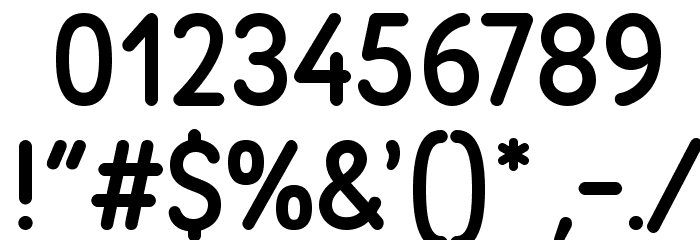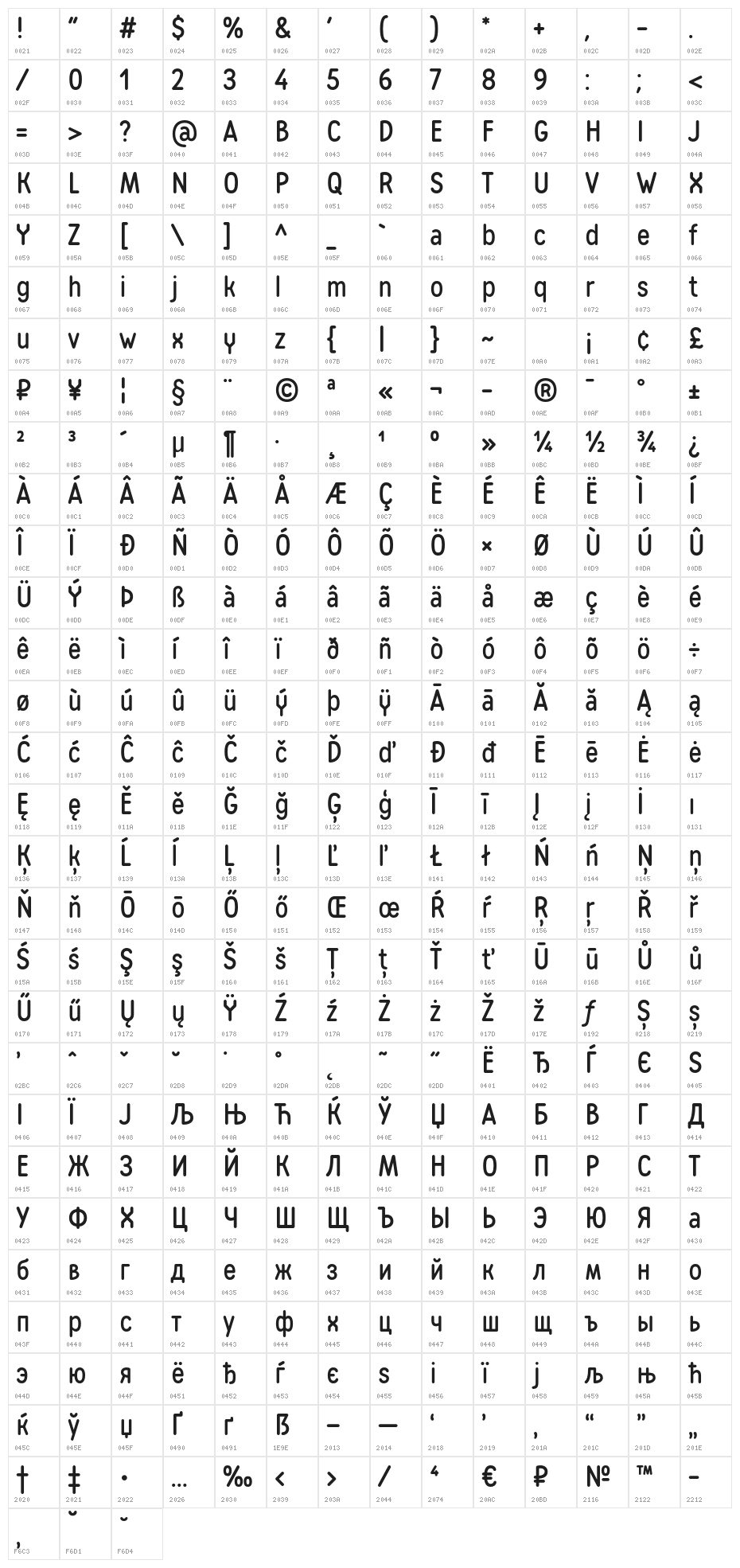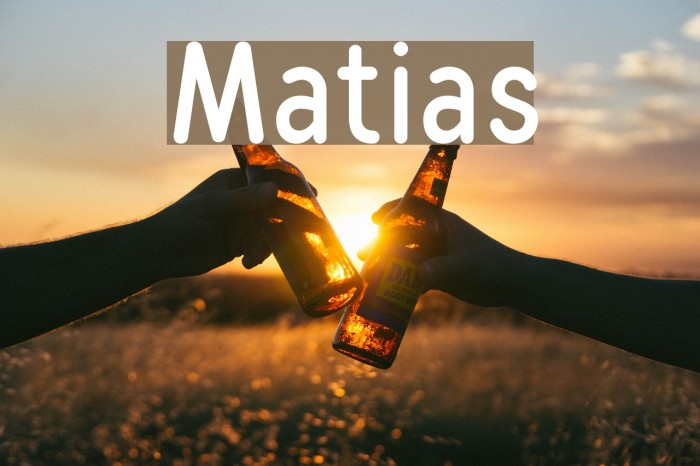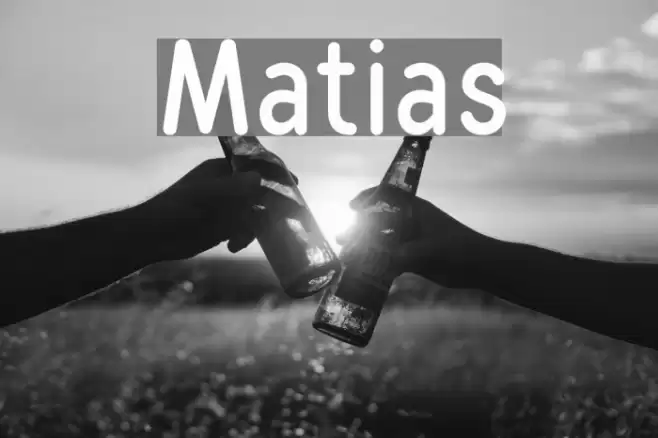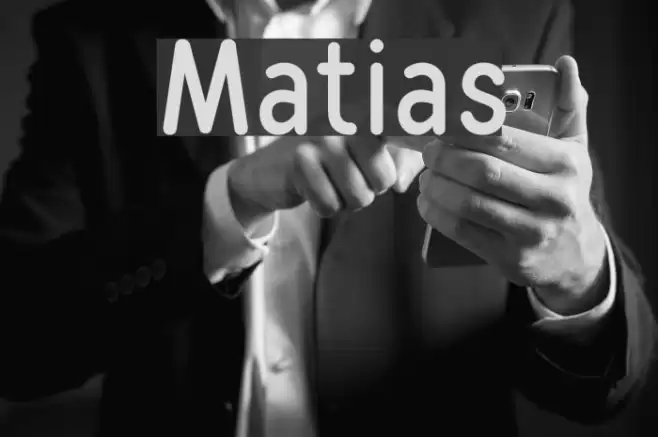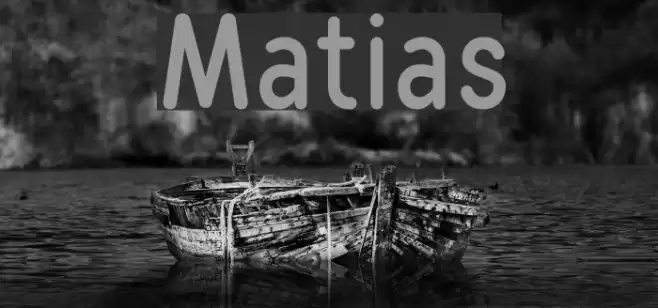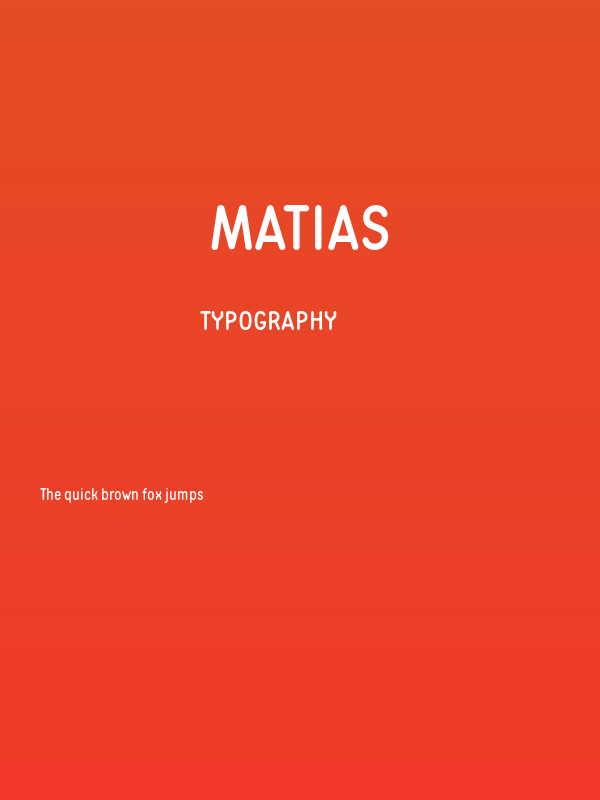
Matias Font
Matias Description
This font features a clean and modern sans-serif style with rounded edges, giving it a friendly and approachable appearance. The characters are evenly spaced, contributing to excellent readability. The uniform stroke width across all characters provides a harmonious and balanced look. The uppercase and lowercase letters are well-proportioned, maintaining consistency throughout the typeface. The numerals are clear and distinct, making them suitable for a variety of applications. Special characters are included, enhancing the font's versatility for different design needs.
| Proposed Projects | Ideal for branding, web design, user interfaces, and print materials where a modern and approachable look is desired. |